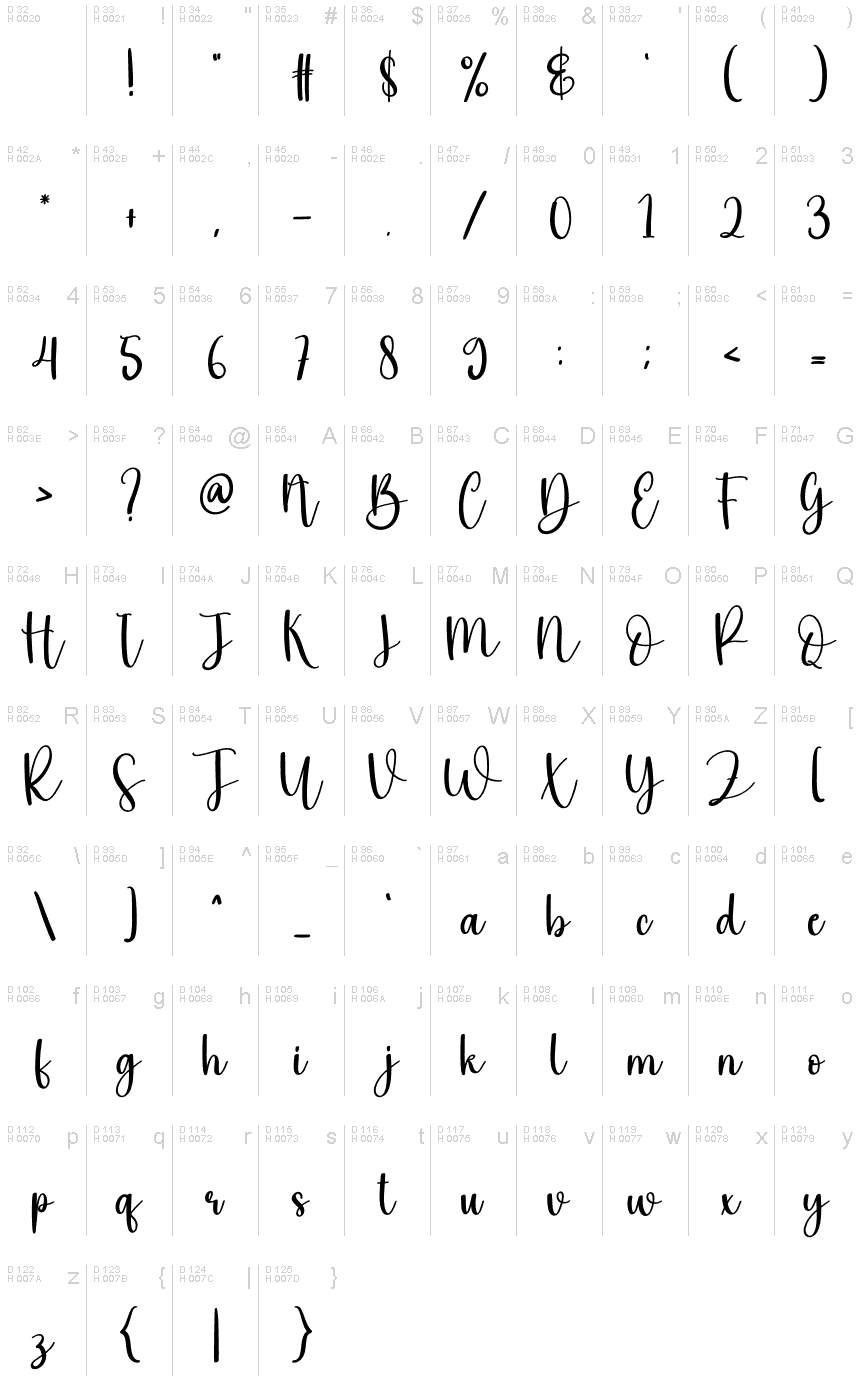
Kichenset
Kichenset, a mesmerizing creation by Scratchones, is a delightful handwritten font that lends an air of whimsy to any project.
With its semi-light weight, this enchanting typeface brings a delicate touch to invitations, greeting cards, and feminine branding. The flowing curves and playful strokes of Kichenset make it perfect for fashion blogs, beauty websites, and children's book covers.
Let your imagination run free as this font adds a touch of elegance and charm to logo designs, social media graphics, or any creative endeavor that requires a hint of artistic flair.